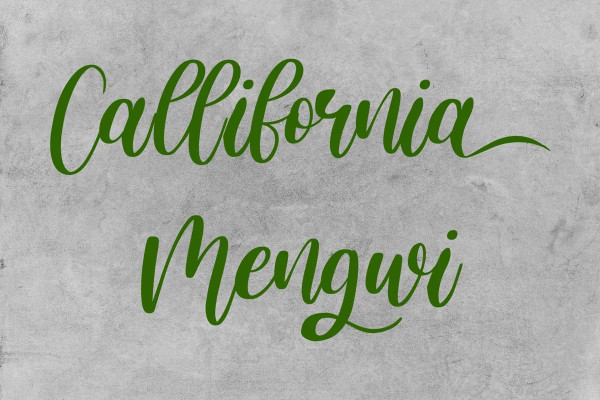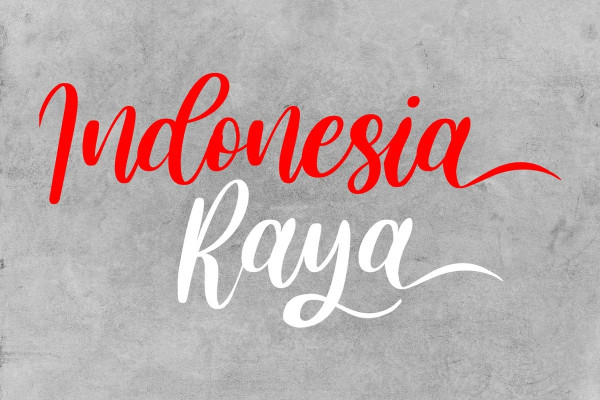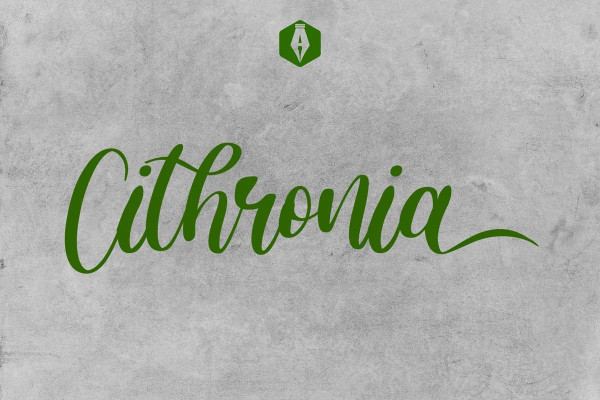
Cithronia Script Font
Cithronia Script Font is a captivating typographic gem designed to ignite your creative projects. With its seamless blend of boldness and artistic finesse, this handcrafted font offers a perfect avenue to elevate your designs to new heights.
Embrace the expressive power of Cithronia Brush Font as it effortlessly adds flair to your branding, logo design, invitations, and social media graphics. Its versatile nature ensures a seamless transition from print to digital media, making it an indispensable asset for designers, artists, and visionaries alike.
Crafted with attention to detail, Cithronia Brush Font boasts elegant brush strokes that radiate an organic charm, while maintaining unmatched legibility in various sizes. This premium typeface is your key to unlocking limitless design possibilities and leaving a lasting impression on your audience.
Embrace the artistic allure of Cithronia Script Font and take your projects on an inspiring journey. Don’t miss this opportunity to infuse your designs with a touch of bold creativity – download Cithronia Script Font today and witness your ideas come to life in stunning typography!